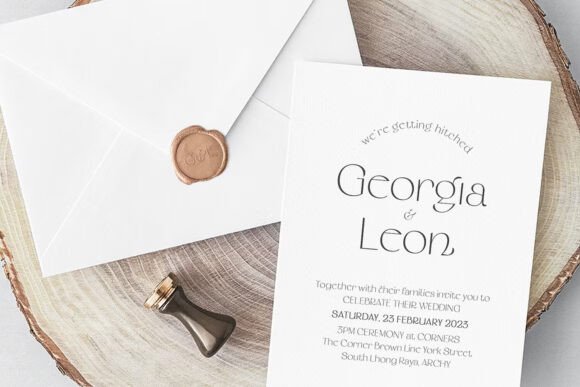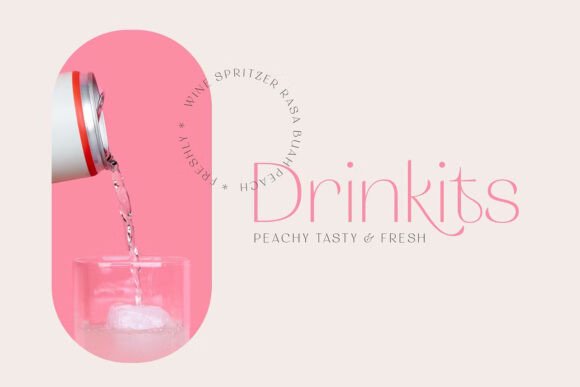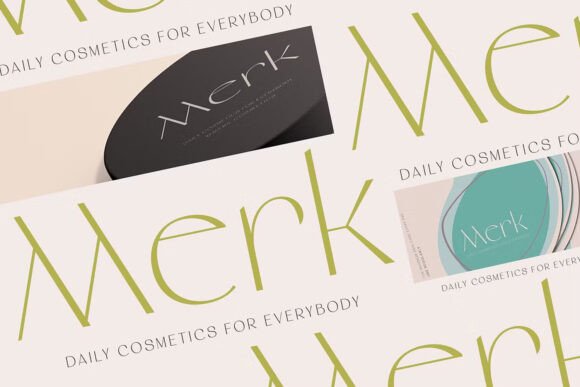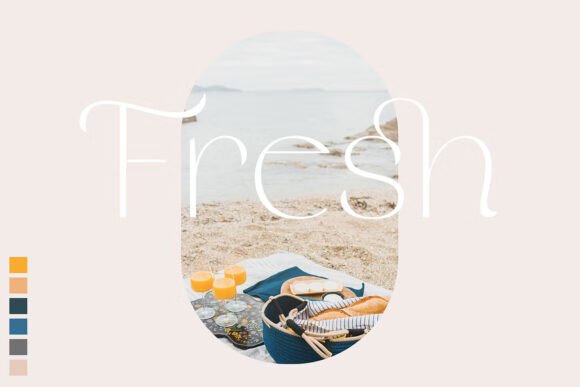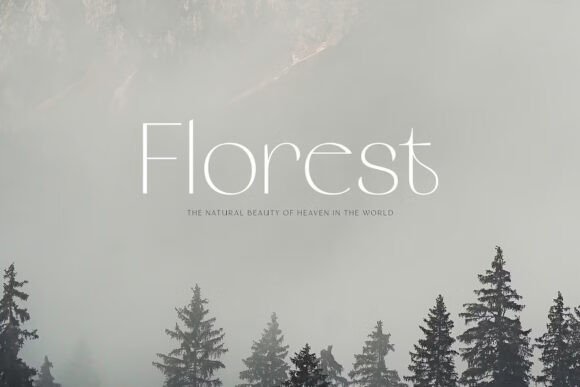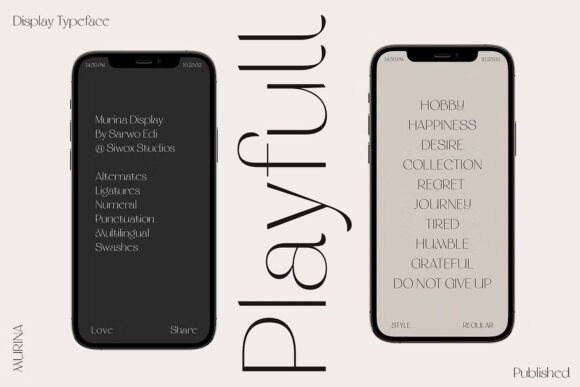
Introduction to Murina Display Font Font
Fonts play a crucial role in design, and the Murina Display Font font is a typeface that brings both character and versatility to any project. Whether you’re working on a branding project, a website, or a print design, the Murina Display Font font offers a unique style that can elevate your work.
Meet Murina Display, a sans serif typeface steeped in Mid-Century Modern elegance and infused with a sophisticated blend of contemporary aesthetics.
This unique construct expertly combines a sans serif base with swash elements, a trace of Blackletter influence, and intricately designed ligatures and alternate letters to provide a complete toolkit for your various design endeavors Its graceful and timeless character makes it the ideal match for a wide array of design inspirations, from classic or retro to vintage, as well as modern or minimalist design trends.
Why Choose Murina Display Font Font?
The Murina Display Font font is more than just a typeface – it’s a design tool that helps you communicate your message with style and clarity. Its unique character set and versatile design make it suitable for a wide range of applications, from elegant invitations to bold headlines.
With its carefully crafted letterforms and balanced proportions, the Murina Display Font font ensures readability and visual appeal across all mediums.
What makes Murina Display Font font special?
The Murina Display Font font stands out with its unique design, exceptional readability, and versatility across various design applications.